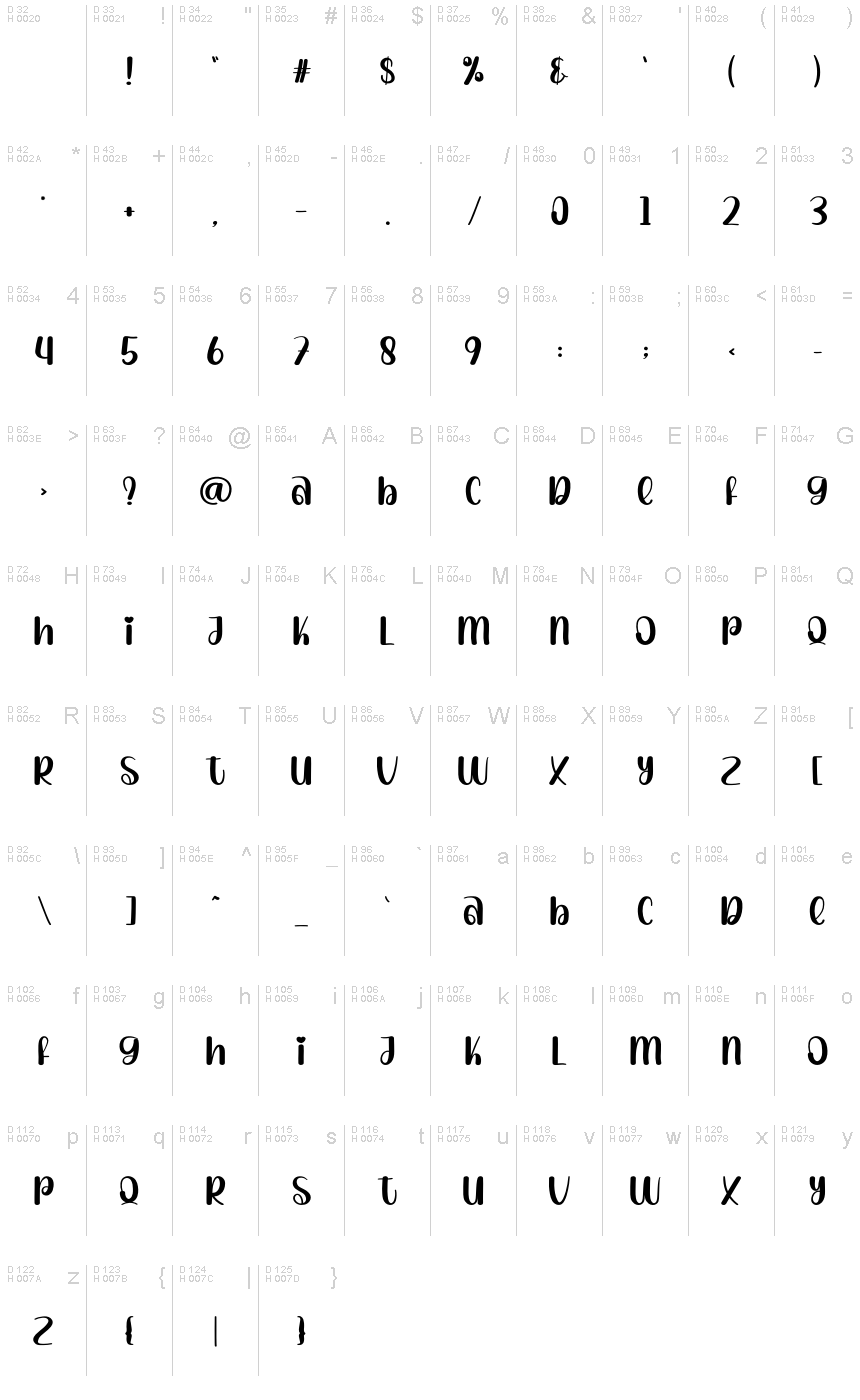
Mother Father
Mother Father, a creation by Scratchones, exudes a warmth and familiarity that can only be captured through the effortless charm of a handwritten font. It stands out with its fluid strokes and personal touch, reflecting an artistic flair that brings to mind heartfelt notes and cozy coffee shop menus. With a casual elegance, Mother Father invites readers into an intimate space, as if each word were penned just for them.
This font's inviting character makes it particularly suited for projects that require a touch of humanity — from personalized stationery and wedding invitations to branding materials for boutique businesses aiming to establish a friendly rapport with customers. Its distinct style promises to add an endearing quality to any design it graces.